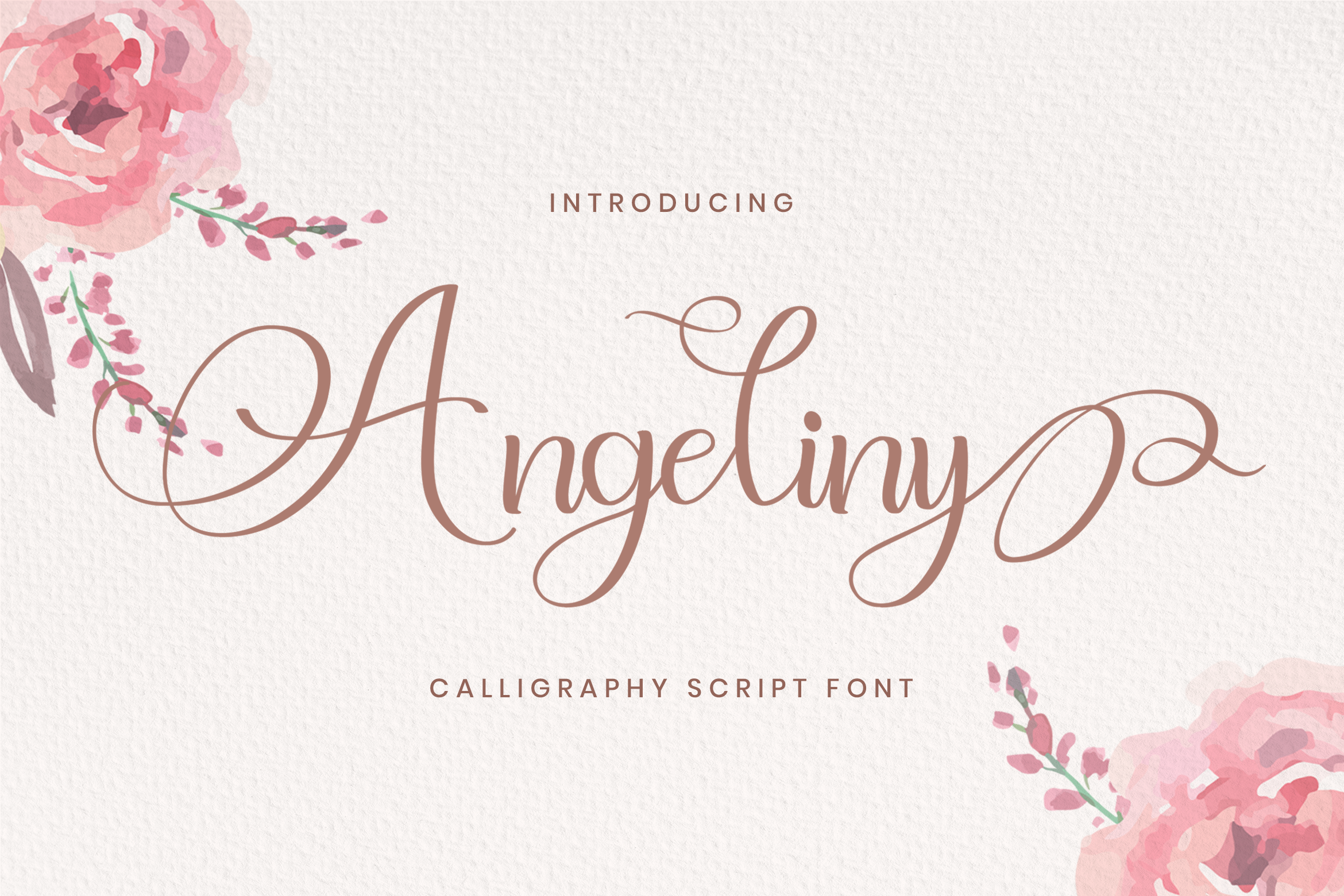
Introducing Angeliny - Calligraphy Font
Angeliny feels equally charming and elegant. Fall in love with its incredibly versatile style and use it to create gorgeous wedding invitations, beautiful stationary art, eye-catching social media posts, and much more!